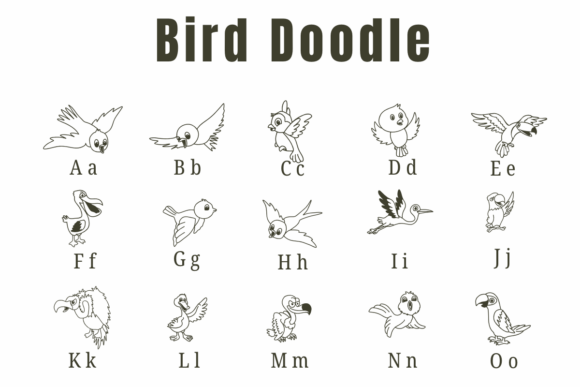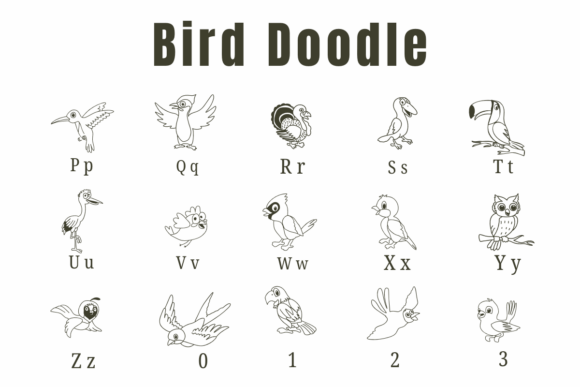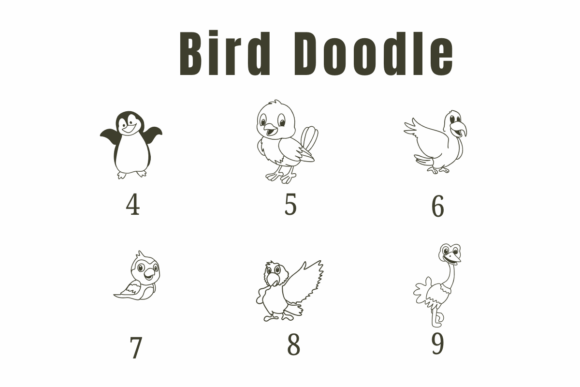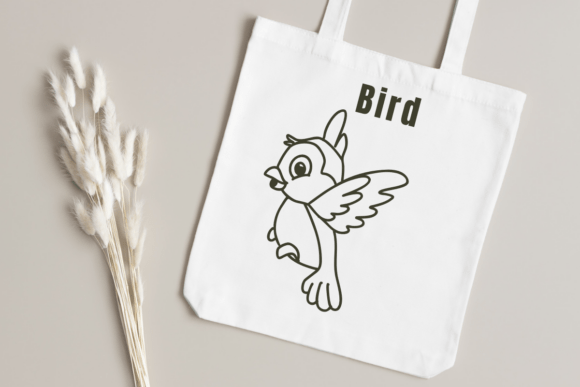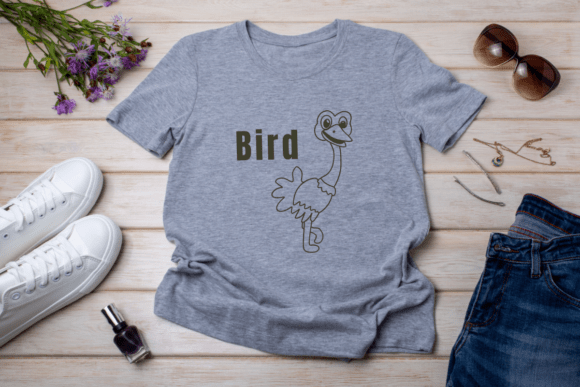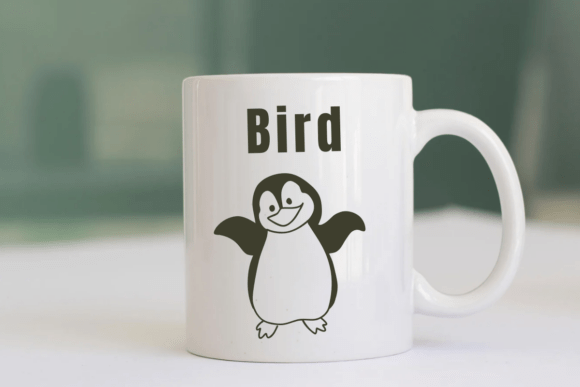
Unleash Your Creativity with the Bird Doodle Font
Have you ever found yourself staring at a blank page, feeling stuck and unsure of how to bring your creative vision to life? We’ve all been there. But what if you had the perfect tool to spark your imagination and take your projects to the next level? Enter the Bird Doodle Font, a charming dingbats font that’s as versatile as it is beautiful.
With its sketched style and whimsical charm, the Bird Doodle Font is perfect for adding a personal touch to your creative projects. Whether you’re designing wedding invitations, crafting DIY decorations, or creating logos for your business, this font is sure to add a unique and eye-catching element to your work. As a designer, you’ll appreciate the value of having a font that’s both versatile and easy to use, making it a valuable addition to your creative toolkit.
Bird Doodle Font Key Features
- Unique Characteristics: The Bird Doodle Font features a unique, hand-drawn design with a playful and whimsical feel, making it perfect for children’s books, educational materials, and other projects that require a fun and engaging tone.
- Character Set: The font includes a comprehensive character set, including uppercase and lowercase letters, numbers, punctuation marks, and special characters, making it suitable for a wide range of applications.
- Style Options: The font comes in multiple styles, including Regular, Bold, Italic, and Bold Italic, providing users with flexibility and versatility in their design choices.
Bird Doodle Font Review
I recently had the chance to try out the Bird Doodle Font, and I must say it’s a unique addition to any designer’s toolkit. ✨ Here are some things that stood out to me:
- The playful, hand-drawn feel of the font is perfect for creating whimsical and eye-catching designs.
- The font includes a wide range of characters, including punctuation and numbers, making it easy to use in a variety of contexts.
- The font’s light and bold versions provide a nice contrast, allowing for a range of visual effects.
- The font may not be suitable for formal or professional designs, as its playful feel may come across as unprofessional.
- The font’s legibility can be affected by the size and spacing of the text, so it’s essential to experiment with different settings to get the best results.
- The font may not be as versatile as some other options, as its unique style may not work well with all design elements.
Overall, I think the Bird Doodle Font is a fun and creative option for designers looking to add some personality to their work. While it may have some limitations, it’s a great choice for the right project.
The Bird Doodle Font is perfect for:
- Party invitations
- Handmade greeting cards
- Whimsical branding and marketing materials
Here are some tips to help you get the most out of the Bird Doodle Font:
- Use it in combination with bright, playful colors to create a fun and whimsical design. Alternatives to Bird Doodle Font for Designers
Q: What is the recommended font size for the Bird Doodle Font?
The recommended font size for the Bird Doodle Font varies depending on the design application and intended use. However, as a general guideline, we recommend using font sizes between 12pt and 48pt for most applications. This will ensure optimal legibility and visual appeal.